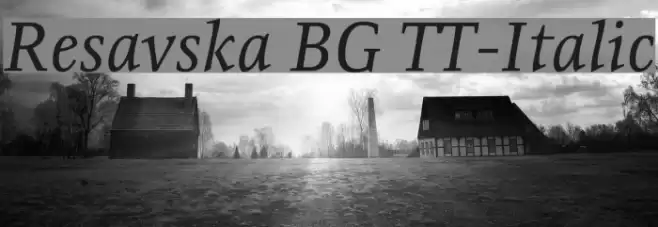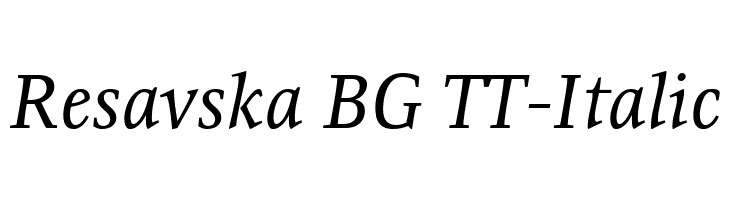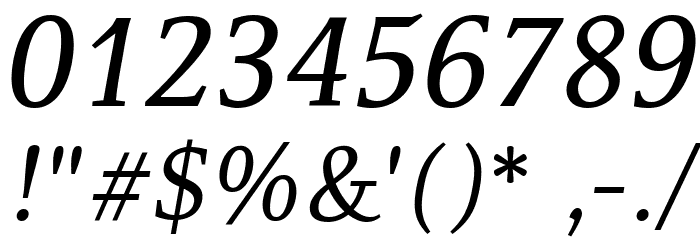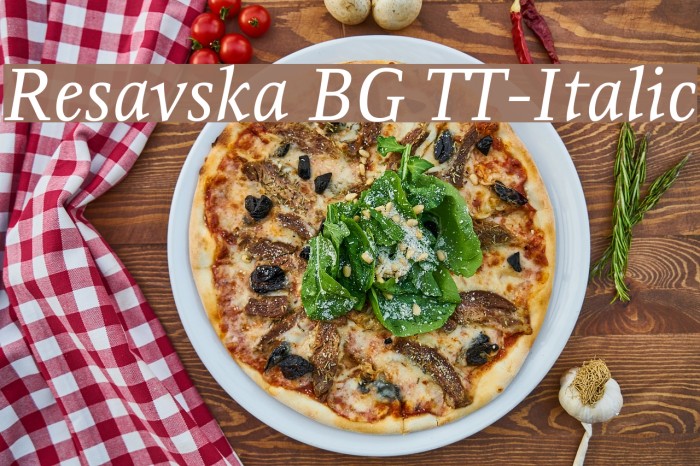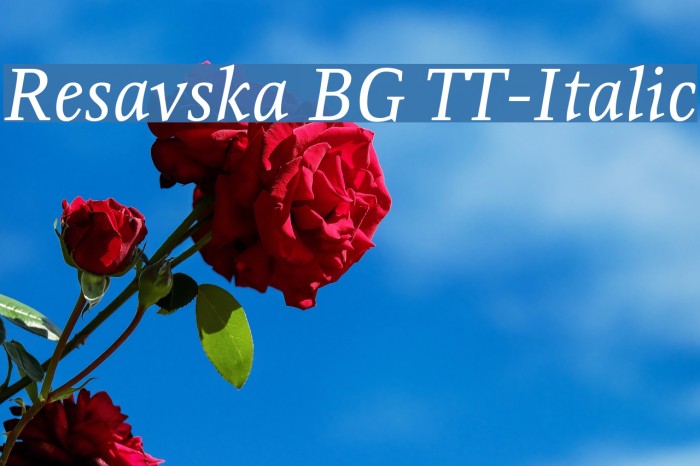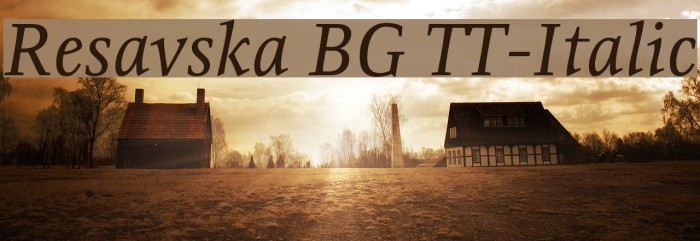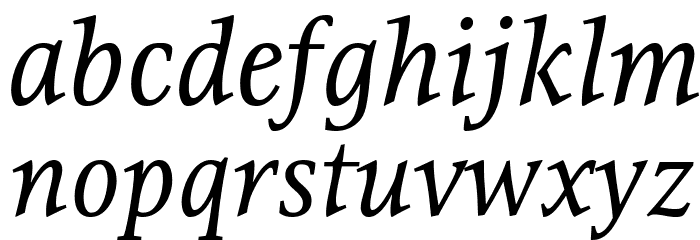
Resavska BG TT-Italic Font
Resavska BG TT-Italic Description
This elegant serif font features a classic italic style, characterized by its smooth, flowing lines and subtle slant. The uppercase letters are tall and refined, while the lowercase letters maintain a consistent rhythm with gentle curves. The numerals are clear and balanced, complementing the overall sophisticated appearance. Special characters are thoughtfully designed, ensuring versatility across various applications. The font's moderate contrast in stroke thickness adds to its readability, making it suitable for both digital and print media.
An elegant serif italic font with smooth lines and moderate contrast from Uncategorized fonts.
- Proposed Projects: Ideal for editorial design, book covers, formal invitations, and branding materials.
- Overall Style: Classic